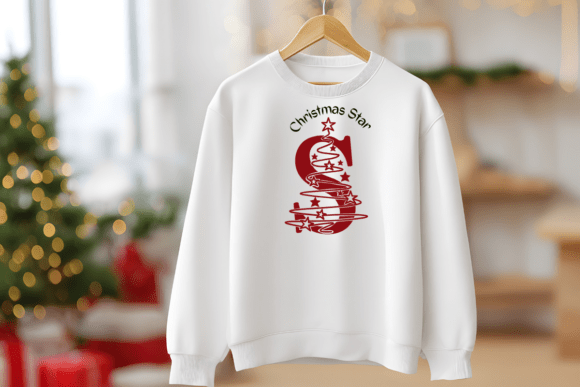
Christmas Magic Star Font
Illuminate your festive projects with Christmas Magic Star, a captivating decorative typeface that transforms classic block letters into stunning holiday-themed design assets.
The Christmas Magic Star font is an innovative decorative typeface where each character is intricately integrated with a spiraling Christmas tree design adorned with stars. This elegant cut-out style turns every capital letter into a festive monogram, making it an exceptional display font for impactful, seasonal headers and personalized items.
The bold, structured letterforms of the Christmas Magic Star font make it perfectly suited for cutting and crafting applications, such as vinyl decals, paper crafts, stencils, and laser cutting, where clean lines and distinct shapes are paramount.
This unique Christmas Magic Star typeface provides a quick and stylish solution for creating personalized holiday décor, custom apparel, and standout event branding.
Utilize the Christmas Magic Star font to effortlessly add a touch of starlit elegance and creative flair to all your winter and holiday projects.